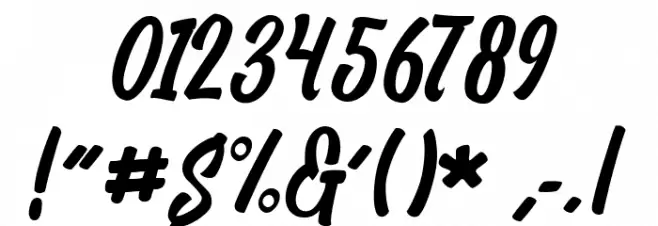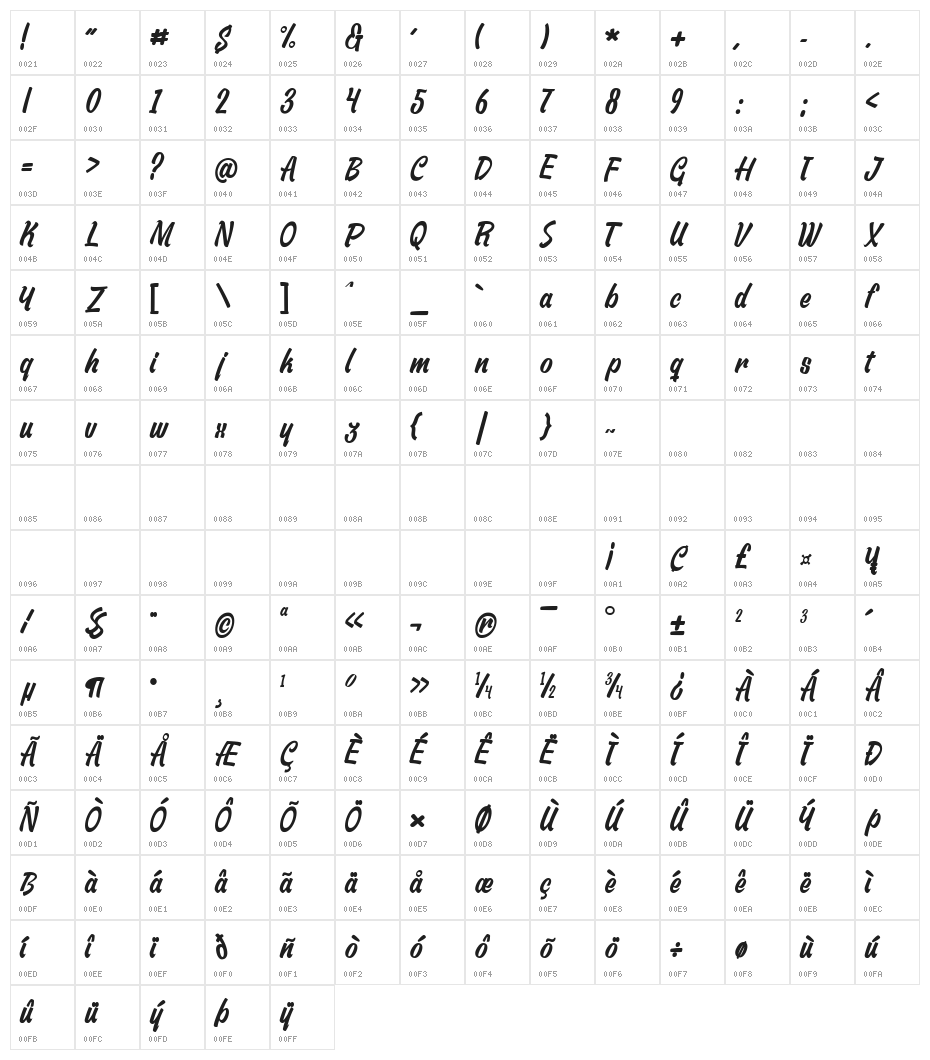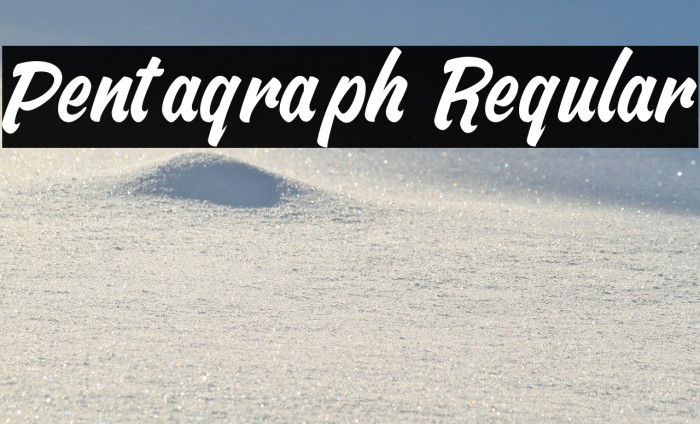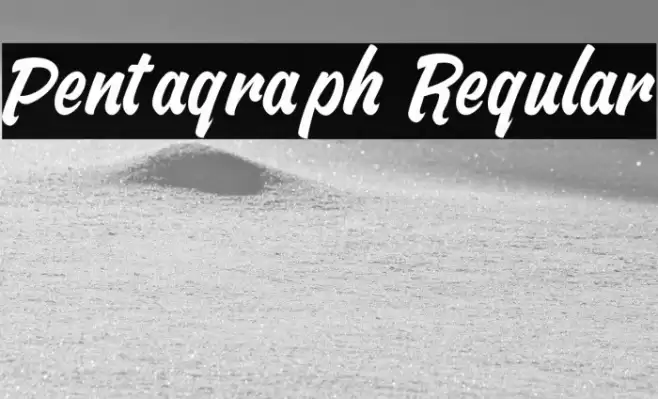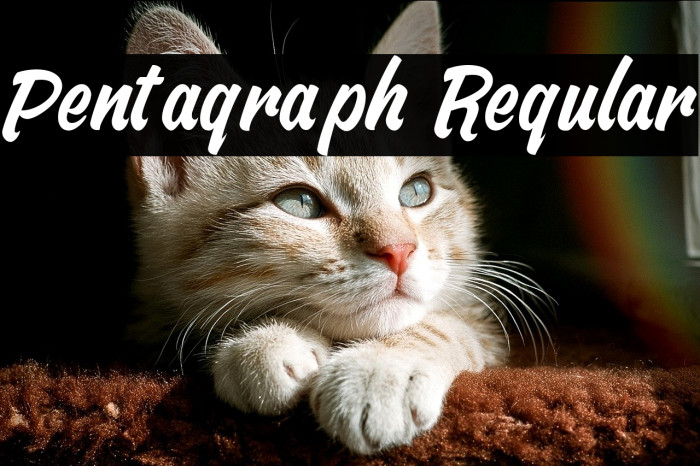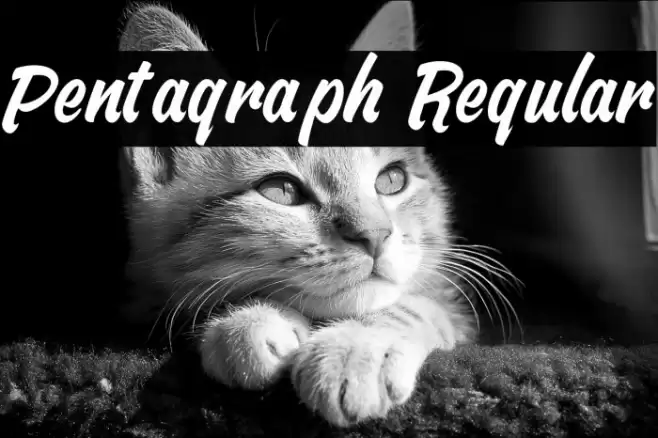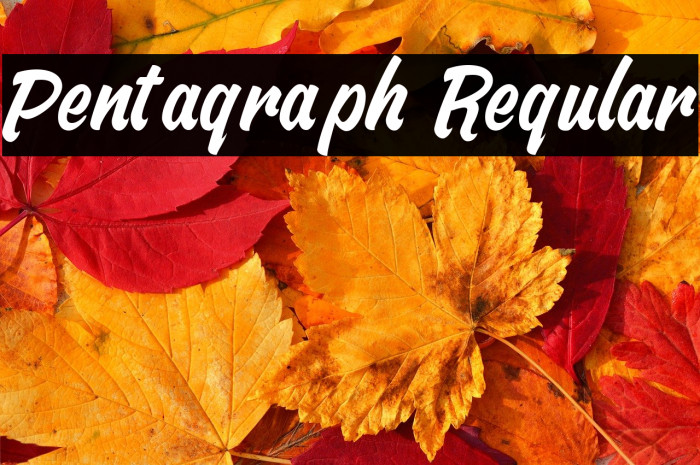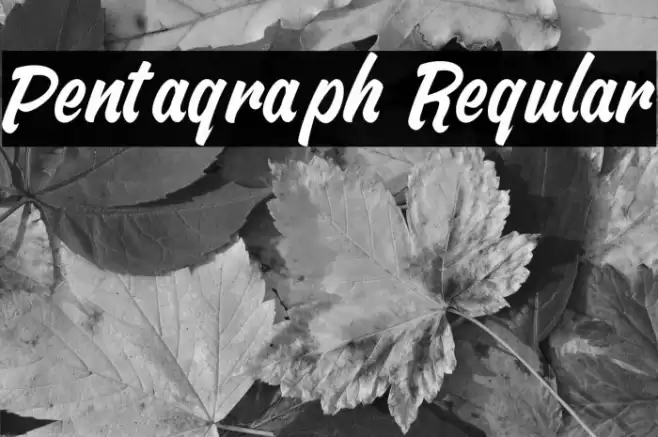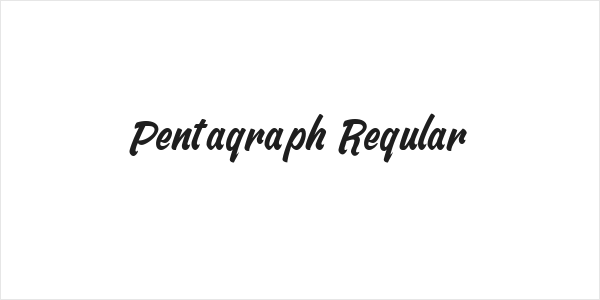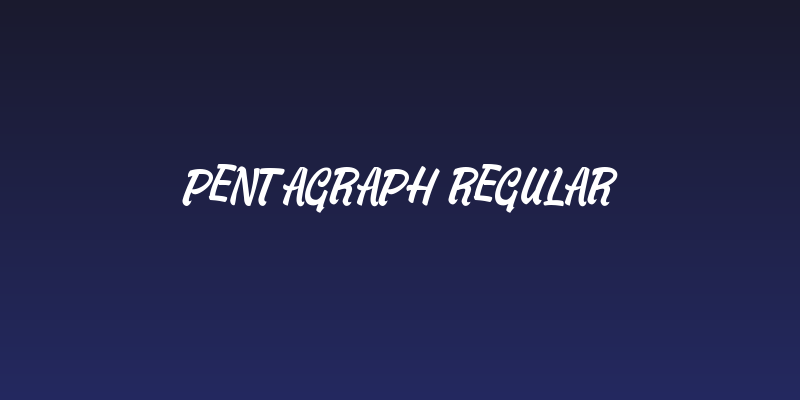
Pentagraph Regular Font
Pentagraph Regular Description
This font features a bold, dynamic script style with a strong presence. The letters are slanted, giving a sense of motion and energy. The strokes are thick and consistent, providing a robust appearance. The uppercase letters are particularly striking, with a slight slant and a flowing, cursive quality. The lowercase letters maintain the same energetic style, with smooth curves and a cohesive look. Numbers and special characters are designed to match the overall aesthetic, ensuring uniformity across all elements. This font is ideal for making a bold statement in any design.